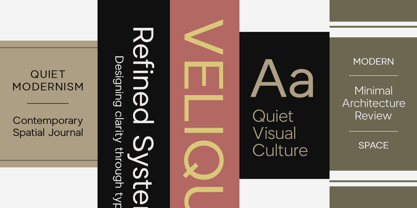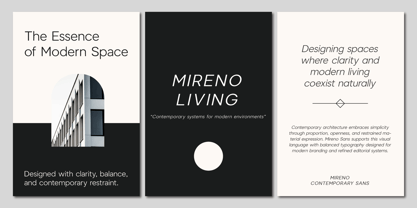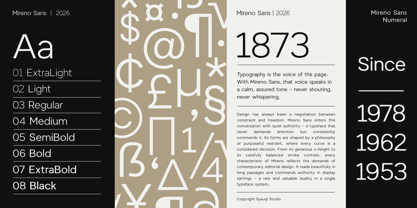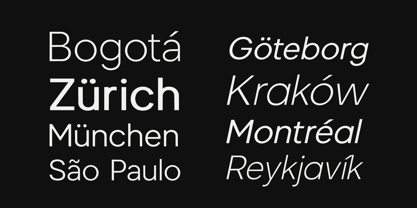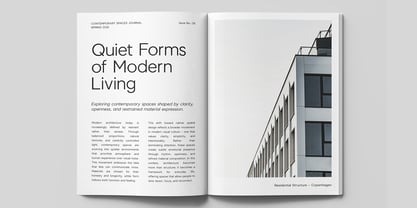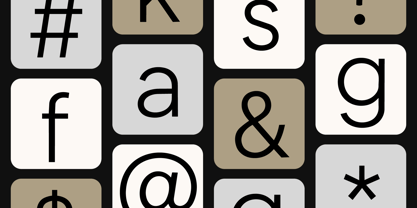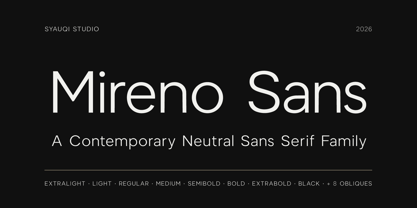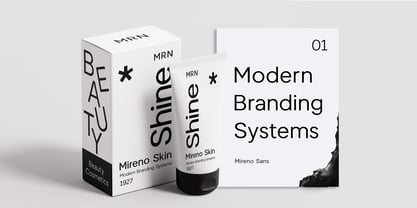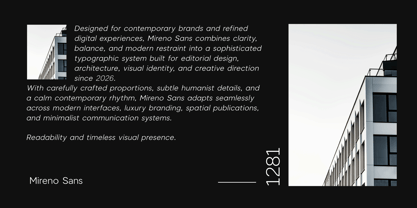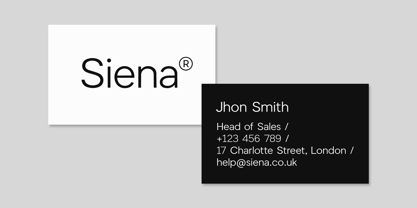
Mireno Sans
The Mireno Sans Font Family was designed by Muhammad Asroful Umam and published by Syauqi Studio. Mireno Sans contains 2 styles. More about this family
Mireno Sans — Contemporary Neutral Sans Serif
Mireno Sans is a contemporary neutral sans serif crafted for modern branding, editorial systems, and refined digital interfaces. Designed with calm proportions, generous spacing, and subtle humanist details, Mireno delivers a clean and sophisticated visual voice while maintaining exceptional readability across both display and text settings.
The typeface balances contemporary precision with a softer, more approachable rhythm — creating a modern sans that feels refined without becoming cold or mechanical. Every curve, spacing decision, and italic angle has been carefully developed to support premium visual identities and elevated design systems.
Open forms, balanced contrast, and smooth optical construction allow Mireno Sans to adapt naturally across branding, websites, packaging, editorial layouts, UI design, presentations, and creative direction. Its restrained character makes it highly versatile: minimal enough for refined interfaces, yet expressive enough for modern editorial and luxury branding applications.
Whether used in large headlines or smaller text compositions, Mireno maintains a calm, polished presence with consistent visual clarity. Rather than following rigid neo-grotesk conventions, it introduces a quieter contemporary tone — clean, balanced, and intentionally understated.
Perfect For:
• Modern Branding Systems
• Editorial Design
• Refined Digital Interfaces
• Luxury & Lifestyle Brands
• UI / UX Design
• Packaging Design
• Creative Agencies
• Websites & Digital Products
• Art Direction & Lookbooks
• Contemporary Visual Identities
Features:
• Uppercase & Lowercase
• Numbers & Punctuation
• Carefully Crafted Italics
• Multilingual Support
• Professional Kerning & Spacing
• Clean Contemporary Letterforms
• Optimized for Print & Digital Use
Mireno Sans brings clarity, elegance, and contemporary refinement into a versatile type system designed for today’s visual culture.